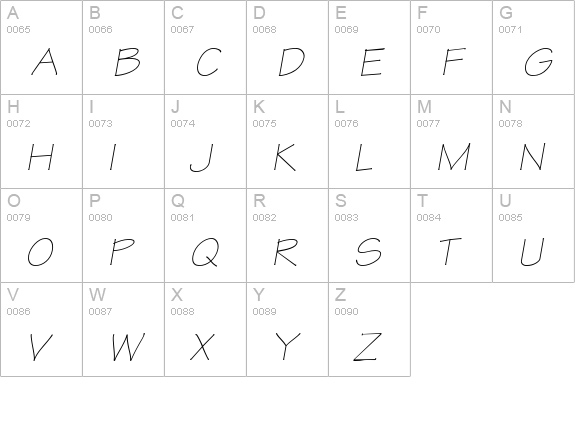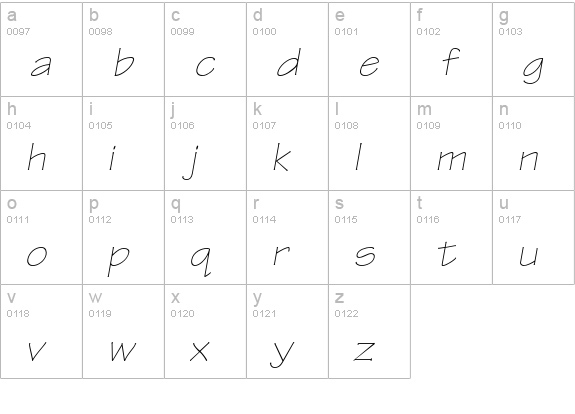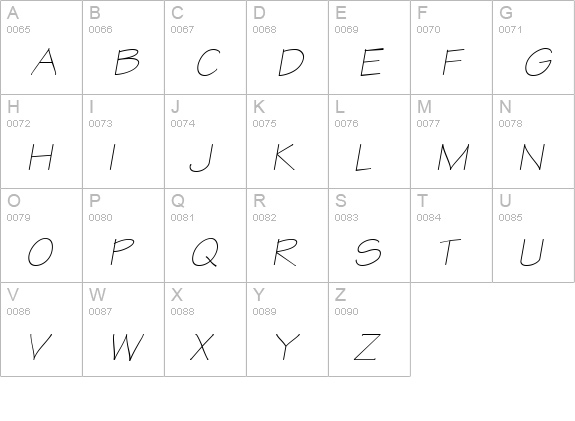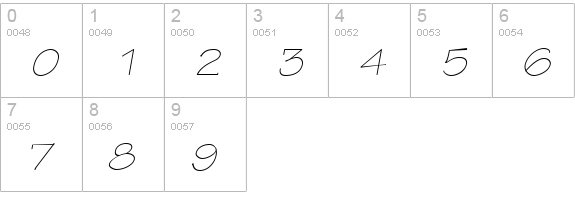
Tekton Pro Light Extended Oblique is a refined, elegant, extended-width, italic variant in the Tekton typeface family \xE2\x80\x94 well suited to elegant body text, refined sub-headings, and luxury branding.
Tekton Pro Light Extended Oblique is a beautifully designed font that exudes elegance and sophistication. With its sleek and elongated letterforms, this font is perfect for adding a touch of modernity to any design project. The carefully crafted extended oblique style adds a dynamic and energetic feel to the text, making it stand out from the crowd. This font is not only aesthetically pleasing but also highly versatile. Whether you are designing a logo, creating a website, or working on a print project, Tekton Pro Light Extended Oblique will elevate your design to the next level. Its clean and legible characters ensure that your message is conveyed with clarity and impact. What sets Tekton Pro Light Extended Oblique apart is that it is freely available to download at FontsMarket.com. This means that you can access this incredible font without any cost, making it an invaluable resource for both personal and commercial projects. Thanks to its free availability, designers and creatives can now add a touch of sophistication to their work without breaking the bank. So why wait? Download Tekton Pro Light Extended Oblique today and unlock a world of possibilities for your design projects. With its stunning design, versatility, and the fact that it is freely available, this font is a must-have for any designer looking to make a statement. Don't miss out on the opportunity to enhance your work with this remarkable font. Embrace the elegance and sophistication of Tekton Pro Light Extended Oblique and take your designs to new heights.